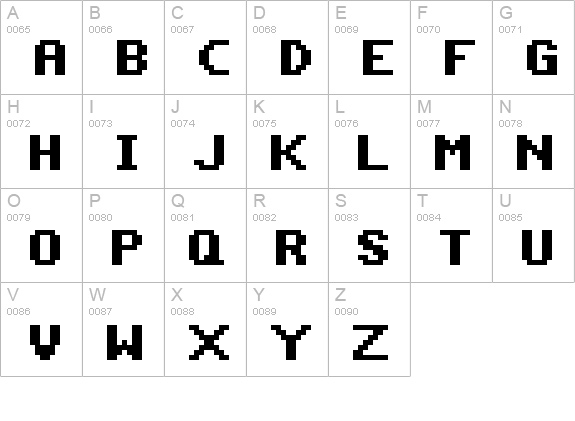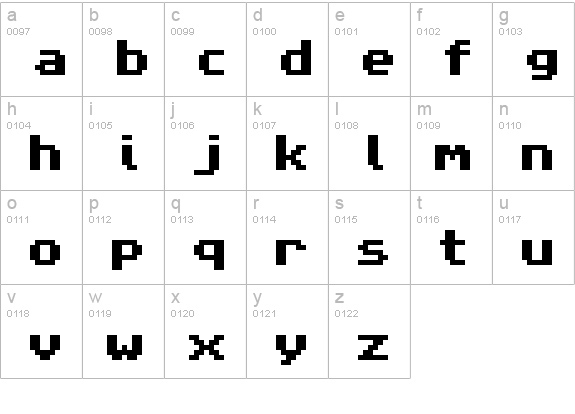
Amiga Forever Font Details
The Amiga Forever font is a captivating and nostalgic typeface that pays homage to the iconic Amiga computer system of the 1980s and 1990s. This font beautifully captures the essence of retro computing, with its pixelated design and charmingly retro aesthetic. The Amiga Forever font is perfect for adding a touch of vintage flair to your designs, whether you're creating posters, logos, or websites. What's even better is that the Amiga Forever font is completely free to download at FontsMarket.com. This means you can easily add this unique and eye-catching font to your collection without any cost. So go ahead and give your projects a nostalgic twist with the Amiga Forever font today!